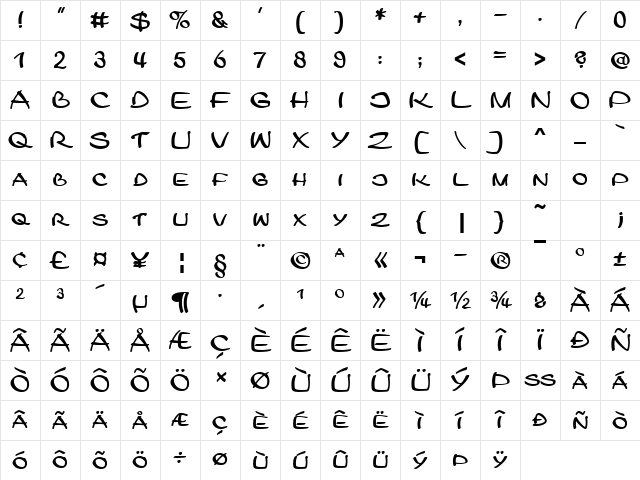
LegerSCD Regular
Design Context for LegerSCD
LegerSCD is a composed and adaptable typeface that performs quietly and consistently across a wide range of design contexts.
Pro Tip: Use LegerSCD in both headline and body roles to test its range before committing to a single application.